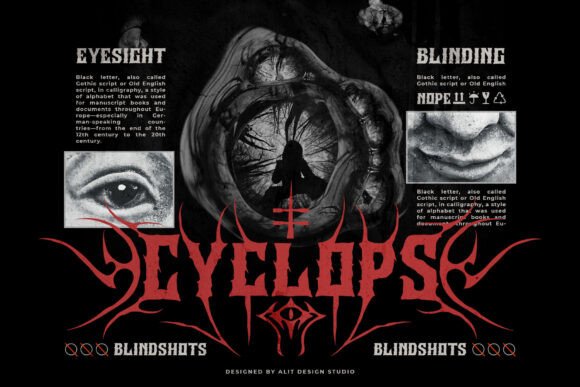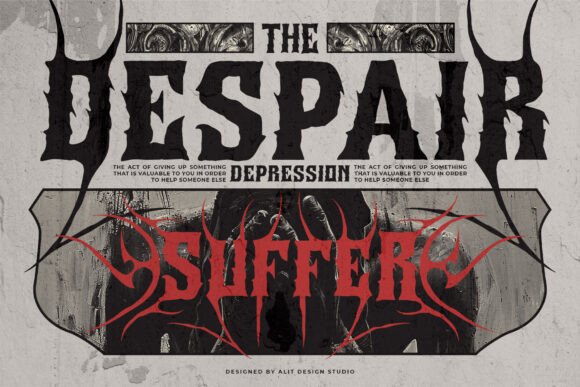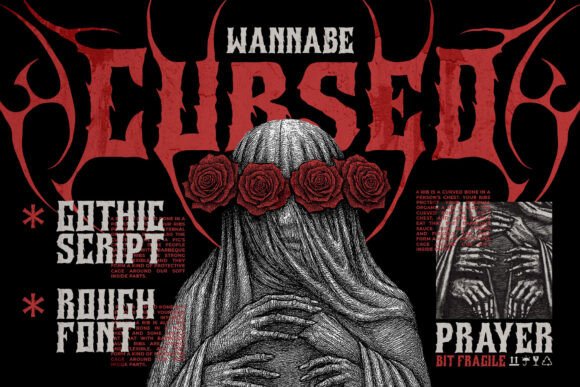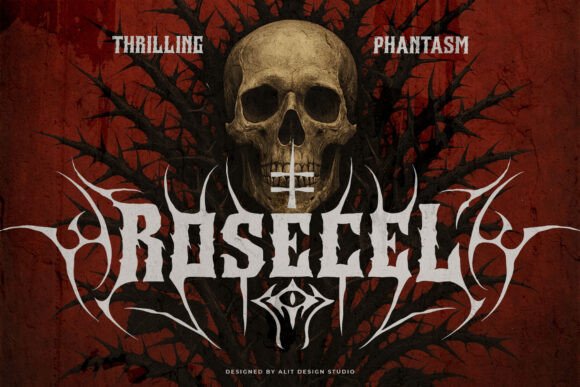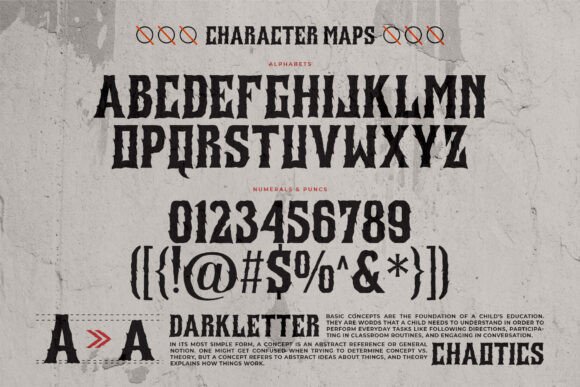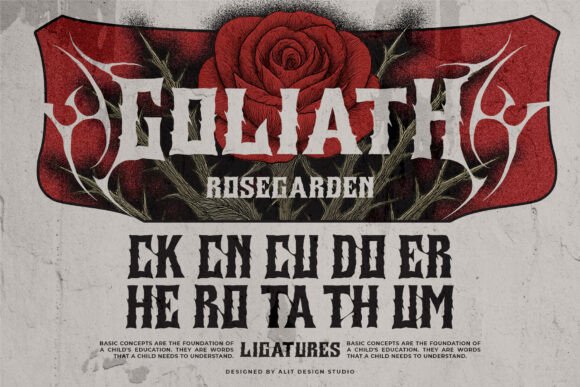
Introduction to Krondos Font
Krondos Typeface – A Font from the Shadows Summoned from the crypt of forgotten scripts, the Krondos Typeface is not for the faint of heart.
Crawling with thorny tendrils and shaped like roots from the underworld, Krondos is a gothic metal-inspired typeface that fuses horror and harmony Each letter is carefully crafted to resemble ancient carvings from a cursed forest—twisted, sharp, and alive.
Key Features of Krondos Font